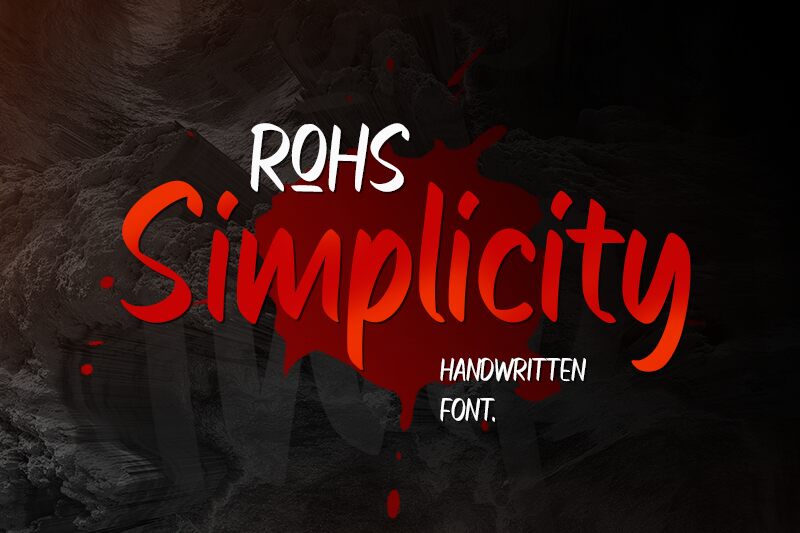
ROHS Simplicity
ROHS Simplicity, designed by Lemonthe, captures the essence of personal touch with its handwritten style that exudes warmth and approachability. Its fluid strokes and slight variations in thickness convey a relaxed yet dynamic rhythm, similar to the charming irregularities found in human script. This font's organic feel is ideal for projects that require a hint of intimacy and authenticity.
Its aesthetic appeal lies in its casual elegance, making it perfect for invitations, branding materials, and editorial designs that aim to establish an intimate connection with the audience. ROHS Simplicity's friendly character ensures it stands out in settings where personality is key.